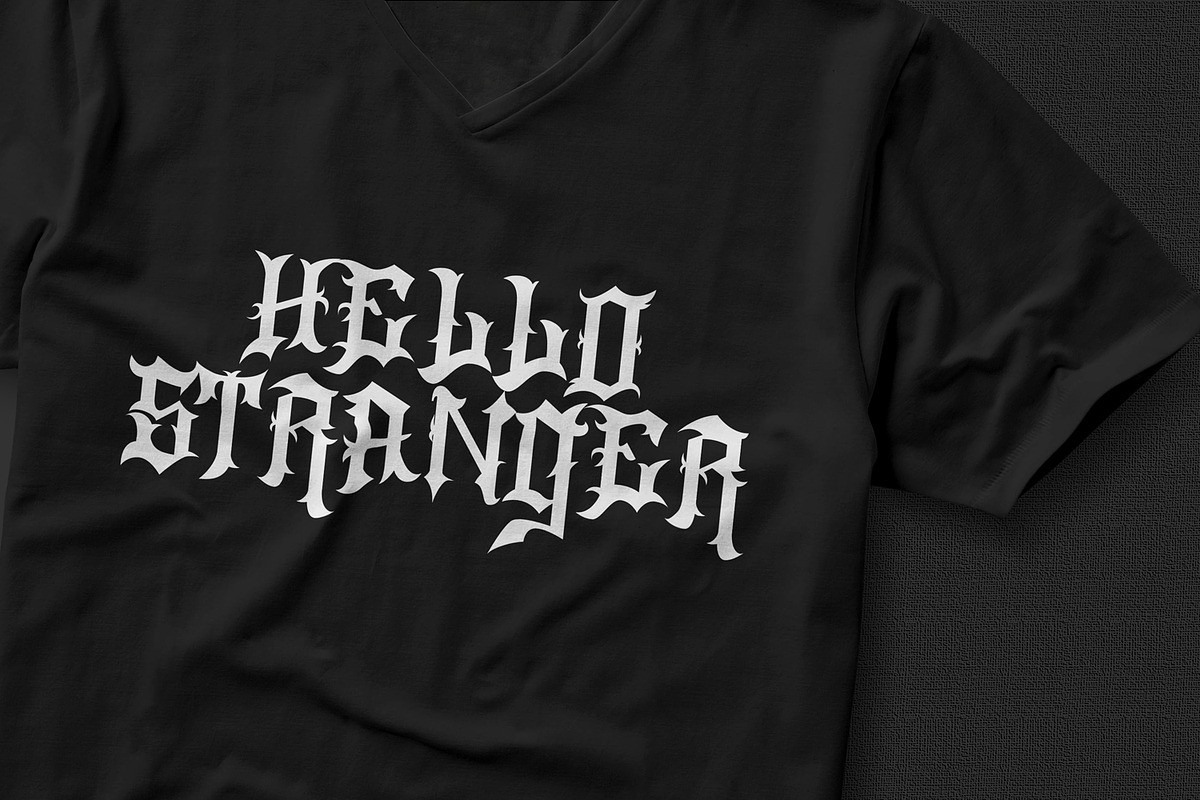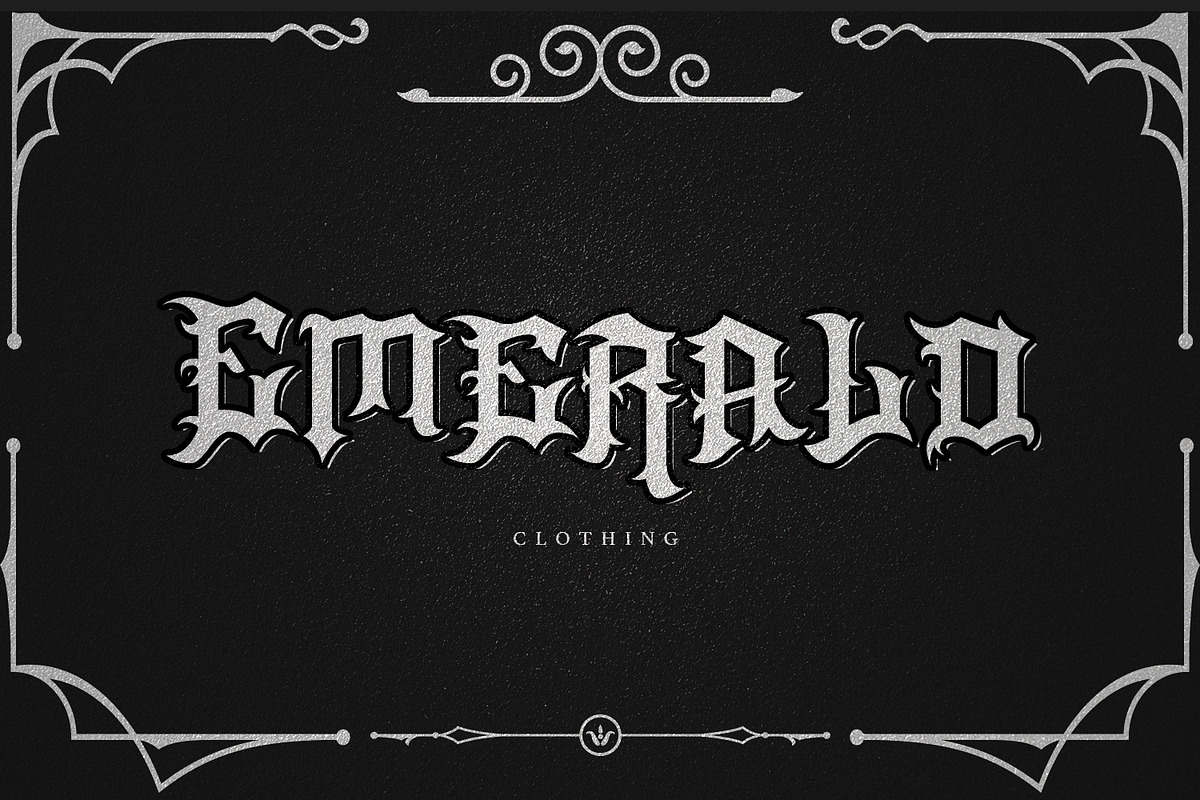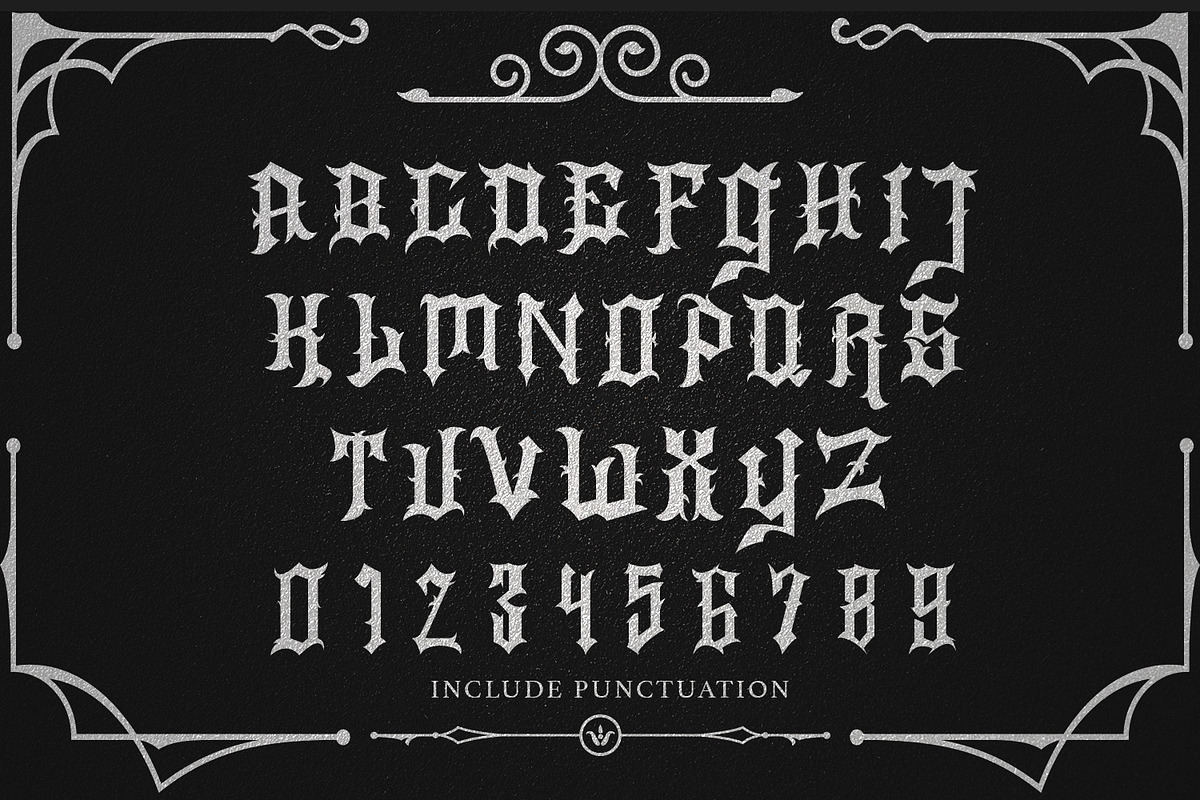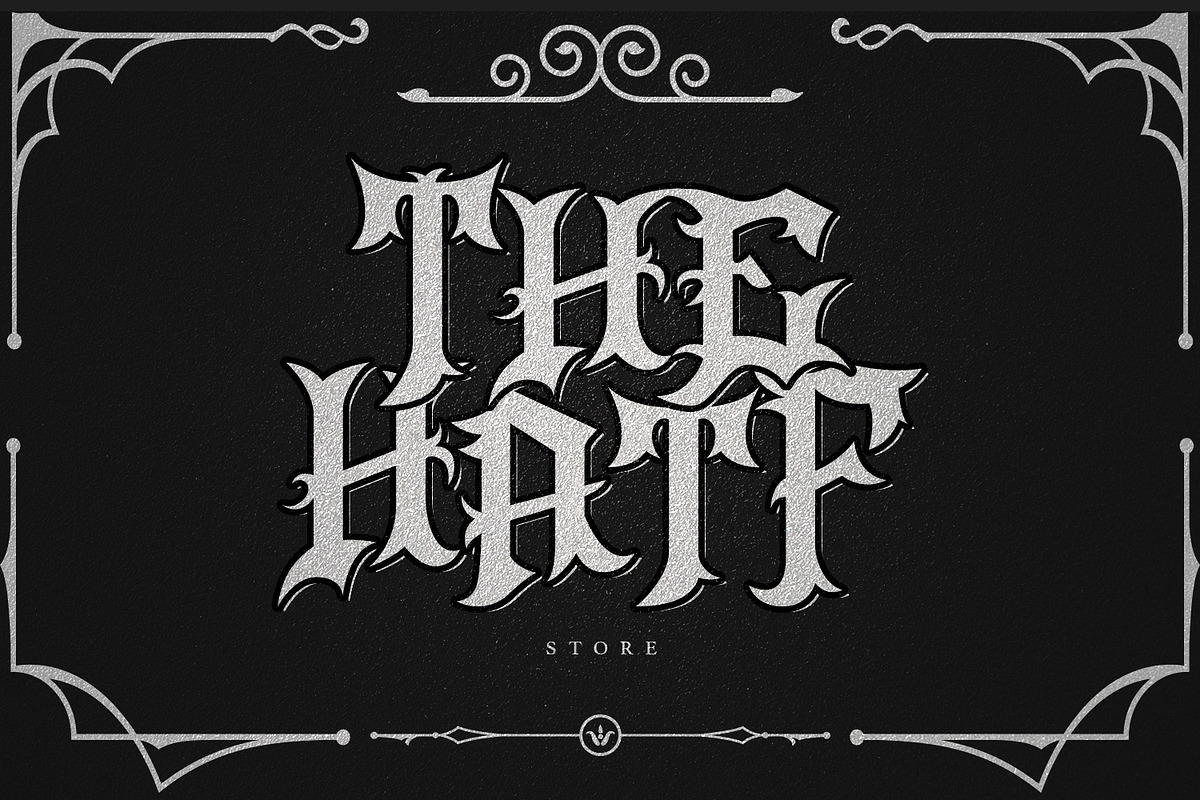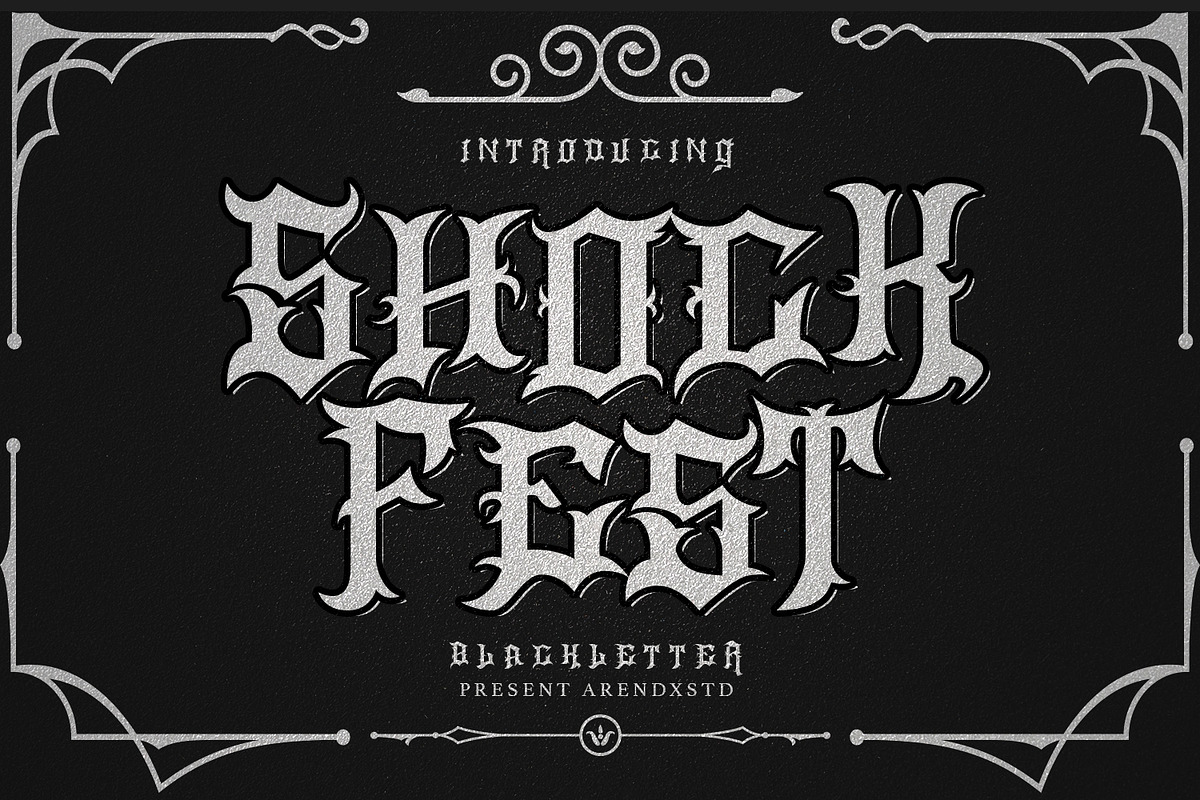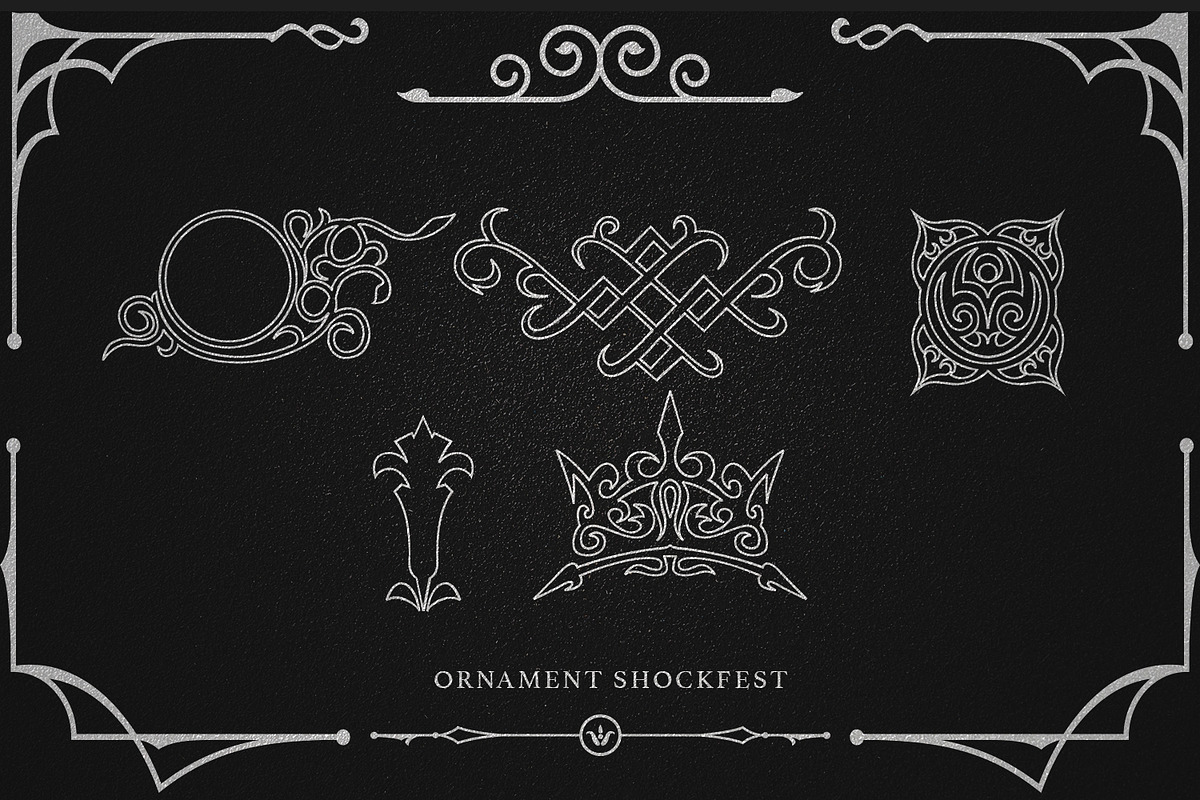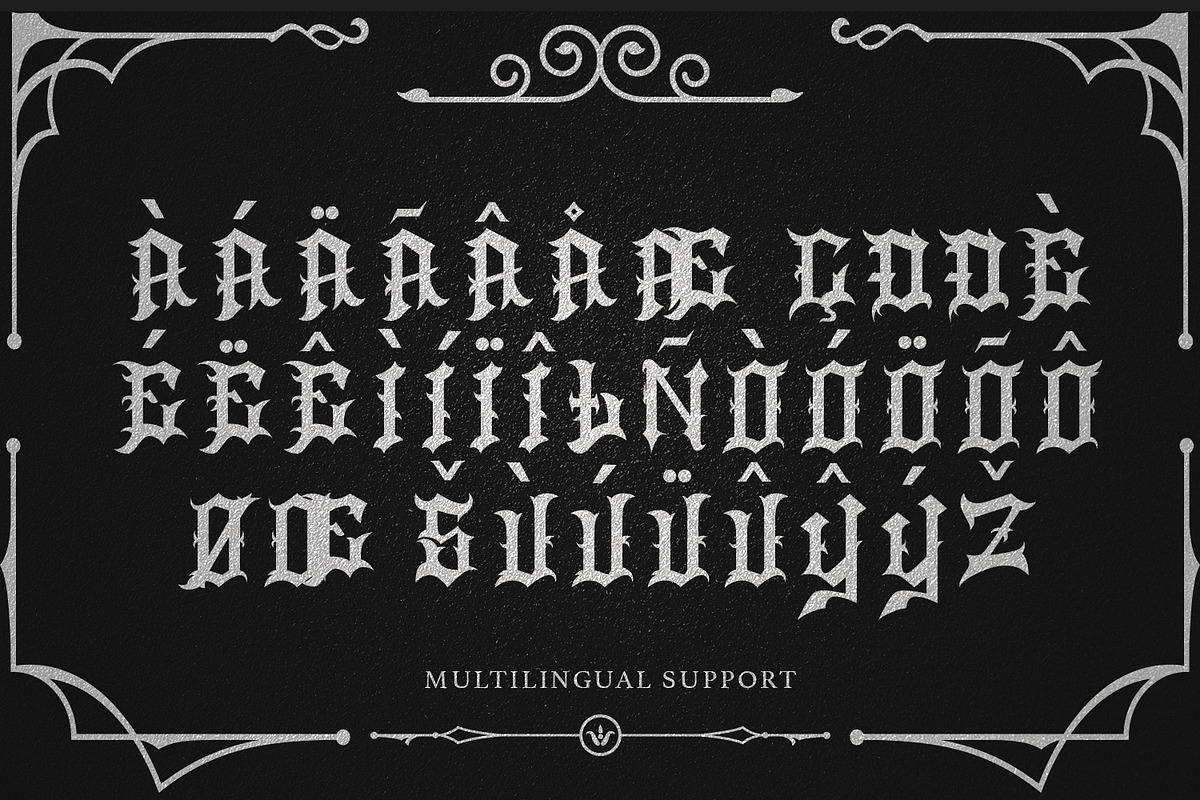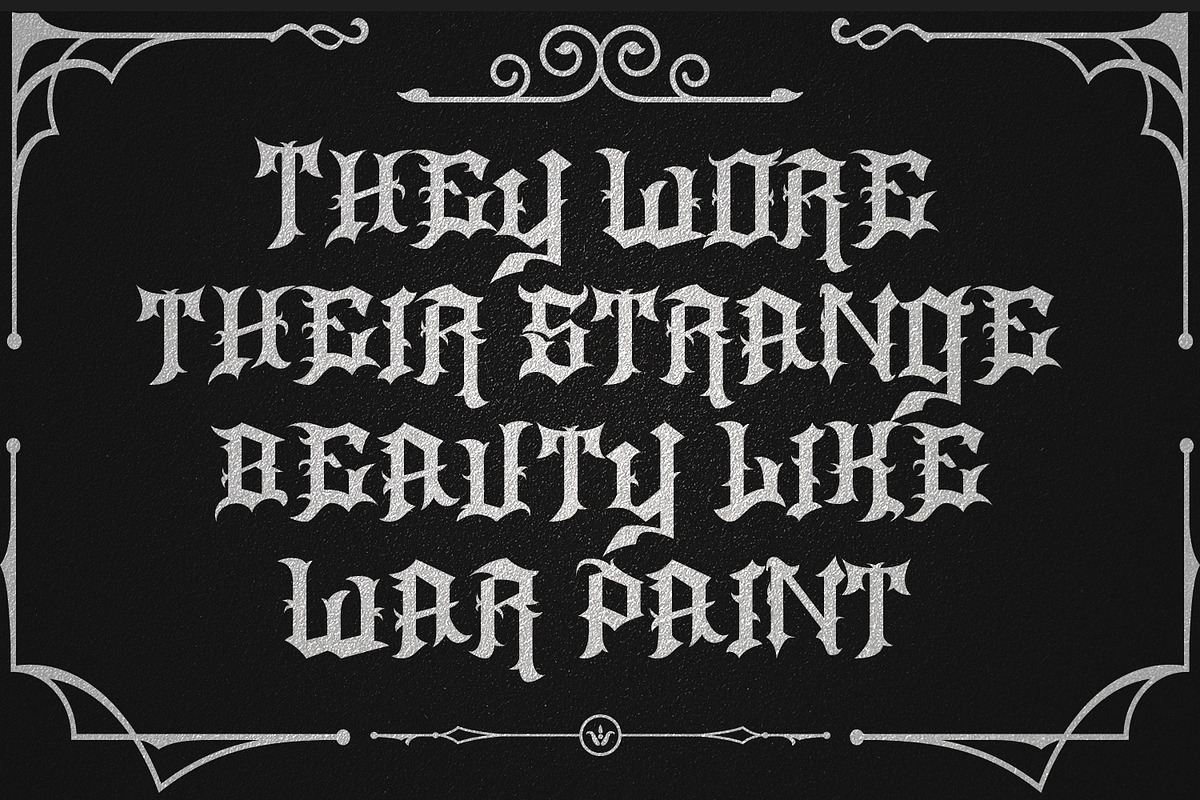
Shock Fest - Blackletter Font
ShockFest is a very powerful Blackletter font in terms of design, has a unique and fancy character making every design project with that style look perfect
ShockFest came with opentype features such stylistic alternates, stylistic sets & ligatures good for logotype, poster, badge, book cover, tshirt design, packaging and any more.